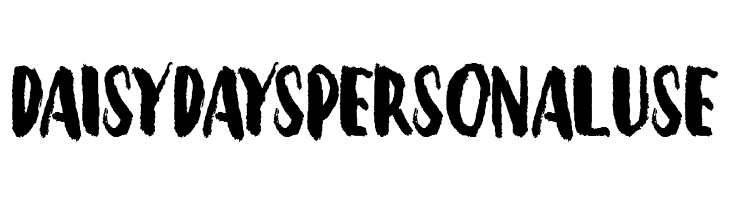
A bold, italicized font with high contrast and dynamic slanted letterforms.
A bold, condensed font with high contrast and a modern, impactful style.
A bold, high-impact display font with thick, blocky letters and unique horizontal line crossings.
A dynamic and elegant script font with a flowing, cursive style.
A dynamic, expressive handwritten font with fluid strokes and elegant curves.
A bold and expressive script font with dynamic, cursive letterforms.
A bold, expressive script font with fluid, connected strokes and elegant flourishes.
A dynamic brush-style font with expressive, fluid strokes.
An ornate, decorative script font with heart motifs and bold, flowing strokes.
A bold, italicized decorative script with dramatic flourishes.
An ornate script font with intricate swirls and flourishes, perfect for elegant designs.
An elegant, ornate script font with flowing, interconnected letters and decorative flourishes.
A graceful, handwritten script font with elegant, flowing lines.
A flowing, elegant script font with a refined, italic style.
An elegant, flowing script font with smooth, cursive letterforms.
An elegant, flowing script font with thin, delicate strokes and graceful loops.
An elegant, flowing script font with a natural handwriting style.
A bold, elegant script font with fluid, interconnected strokes and dramatic flourishes.
A fluid and elegant handwritten script with a dynamic style.
An elegant script font with ornate flourishes and a flowing cursive style.
A sleek, modern font with thin, clean lines and geometric precision.
A modern, sleek font with rounded edges and a minimalistic design.
A modern, minimalist font with thin strokes and a sleek design.
A bold, rounded font with a modern and playful style.
A bold, rounded font with a modern and cohesive design.
A bold, fluid script font with elegant cursive letters and dynamic strokes.
A futuristic, geometric font with bold, angular shapes and a sci-fi aesthetic.
A futuristic, geometric font with a sci-fi aesthetic and intricate detailing.
A bold, decorative blackletter font with intricate Gothic styling.
A bold serif font with a unique star motif, combining elegance and creativity.